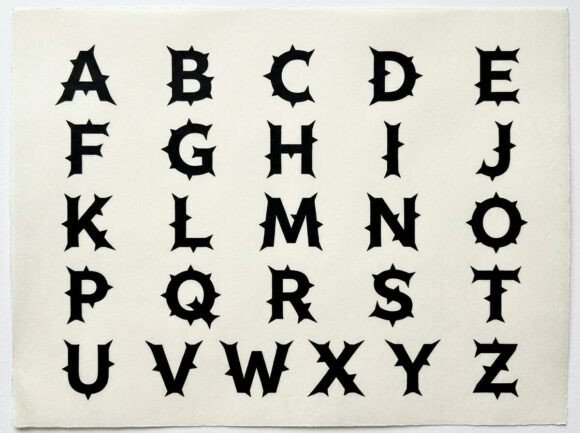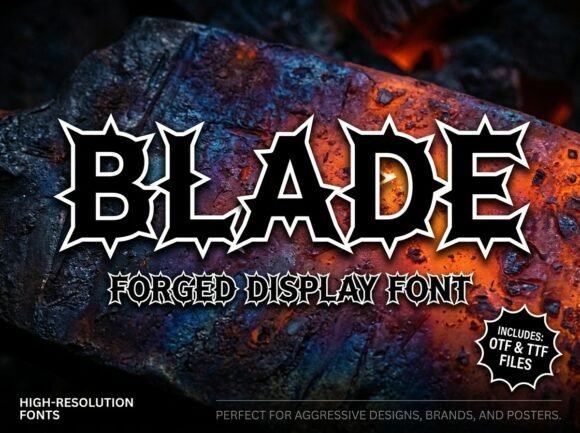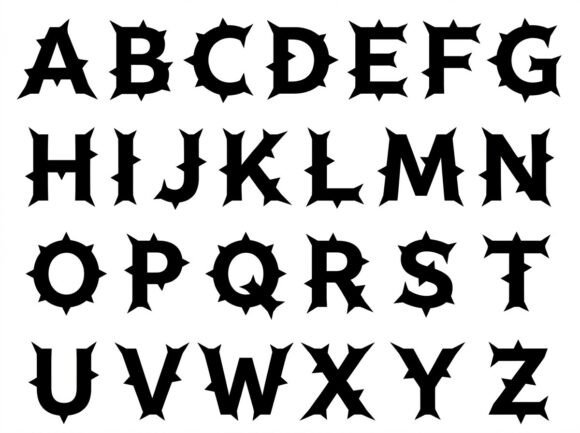
Introducing Blade Font: The Avant-Garde Decorative Display Font
Are you tired of using the same old fonts that blend in with the crowd? Look no further than Blade Font, an avant-garde decorative display font designed to make a statement. With its commanding visual personality and unique artistic flourishes, this typeface is perfect for creators who refuse to blend in.
What Makes Blade Font Stand Out
Blade Font is characterized by its strong, artistic soul and high-end, polished finish. This font is crafted for those who want to add a touch of luxury to their designs, making it suitable for high-end branding, packaging, and editorial layouts. Whether you’re working on a luxury packaging project or an experimental editorial layout, Blade Font is the perfect choice.
Ideal Use Cases for Blade Font
Blade Font is ideal for a variety of design projects, including:
- High-impact headlines: Make a statement with Blade Font’s bold and eye-catching design.
- Signature logos & branding: Create a unique and memorable brand identity with this distinctive font.
- Conceptual packaging: Add a touch of luxury to your packaging designs with Blade Font’s high-end finish.
- Poster & social media design: Stand out on social media and create striking posters with this attention-grabbing font.
Important Note: All-Caps Display Typeface
Please note that Blade Font is an all-caps (uppercase only) display typeface. By omitting lowercase characters, the designer has focused entirely on the intricate craftsmanship of every individual letter, ensuring each one acts as a standalone work of art. This means that Blade Font is perfect for headlines, titles, and other display text, but may not be suitable for body copy or other long-form text.
Why Choose Blade Font?
Blade Font is the perfect choice for designers and crafters who want to add a touch of elegance and sophistication to their designs. With its unique artistic flourishes and high-end finish, this font is sure to make your designs stand out from the crowd. Here are just a few reasons why you should choose Blade Font:
- Unique and eye-catching design: Blade Font’s avant-garde design is sure to grab attention and make a statement.
- High-end finish: This font’s polished finish makes it perfect for luxury branding and packaging designs.
- Versatile: Blade Font can be used for a variety of design projects, from posters and social media graphics to packaging and branding.
Tips for Using Blade Font
Here are a few tips for getting the most out of Blade Font:
- Use it sparingly: Blade Font is a display font, so use it sparingly to make a big impact.
- Experiment with different colors and textures: Add an extra layer of depth and interest to your designs by experimenting with different colors and textures.
- Pair it with a simple font: Balance out Blade Font’s bold design by pairing it with a simple font for body copy or other text.
Blade Font is a unique and eye-catching decorative display font that’s perfect for designers and crafters who want to add a touch of elegance and sophistication to their designs. With its high-end finish and versatile design, this font is sure to make your designs stand out from the crowd. So why wait? Download Blade Font today and start creating stunning designs that demand attention.